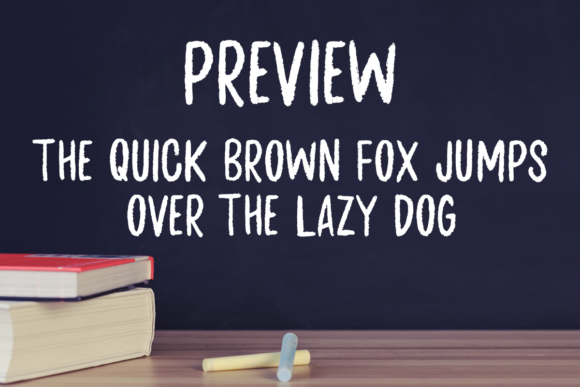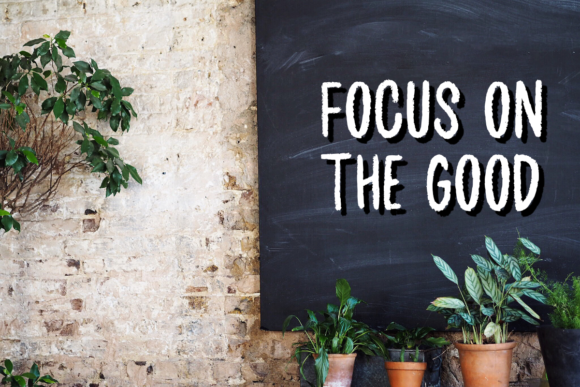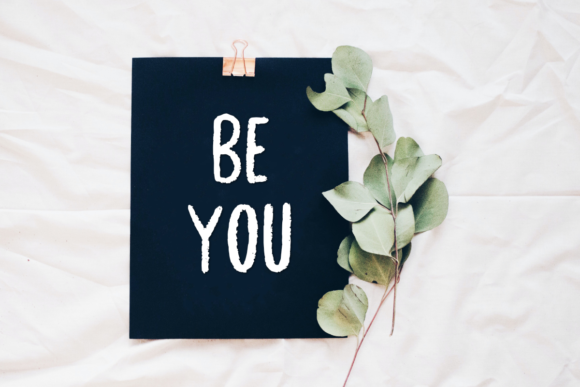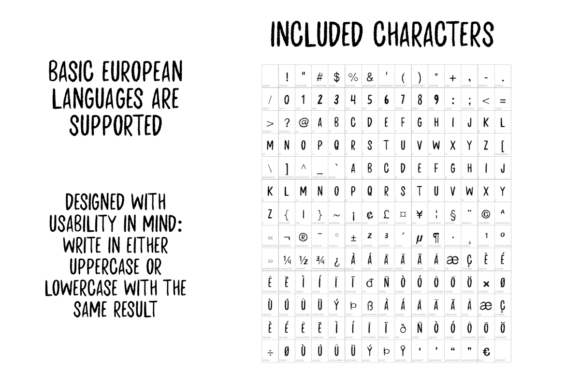
The Magic of Chalkboard Font: Bringing Warmth to Your Designs
Remember the first time you walked into a quaint, old-fashioned classroom, where the chalkboard scribbles told a story of their own? The faint smell of chalk, the creaky wooden desk, and the warm, nostalgic feel that lingered in the air? That’s the exact essence of the Chalkboard Font, a font that will transport your designs to a bygone era.
Designed to evoke the authentic look and feel of a chalk-scribbled board, this cool, brushed display font is perfect for quotes, teaching materials, and any design that needs a personal touch. Whether you’re a graphic designer, a teacher, or a creative enthusiast, the Chalkboard Font is an invaluable addition to your toolkit.
Chalkboard Font Key Features
- Unique Characteristics: Distressed, vintage, and hand-drawn appearance, giving it a unique and nostalgic feel.
- Style Options: Includes various font styles, such as regular, bold, italic, and bold italic, to cater to different design needs.
- Legibility: Designed to be highly legible, even at small font sizes, making it suitable for body text and headlines.
Chalkboard Font Review
As a designer, I was excited to try out the Chalkboard Font. Here’s my honest review.
- Casual and playful vibe: Chalkboard Font is perfect for creating a relaxed and informal atmosphere, making it ideal for children’s books, school projects, and even restaurant menus.
- Easy to read: The font is clear and legible, even at smaller font sizes, which is a must for any font used in print or digital media.
- Variety of styles: Chalkboard Font comes in different styles, from bold and playful to elegant and sophisticated, offering designers a range of options to choose from.
- Not suitable for formal documents: Due to its casual nature, Chalkboard Font may not be the best choice for formal documents, such as business reports or academic papers.
- Limited versatility: While the font is great for certain projects, it may not be the best fit for others, such as corporate branding or high-end fashion designs.
- Not ideal for small font sizes: While the font is clear at larger sizes, it may become blurry or difficult to read at smaller sizes.
Overall, I think Chalkboard Font is a great addition to any designer’s toolkit. It’s perfect for creating a playful and casual atmosphere, and its variety of styles offers designers a range of options to choose from. However, it may not be the best choice for formal documents or projects that require a more sophisticated look.
The Chalkboard Font is commonly used for:
- School and educational materials.
- Restaurant and cafe menus.
- Wedding invitations and decorations.
- DIY crafts and projects.